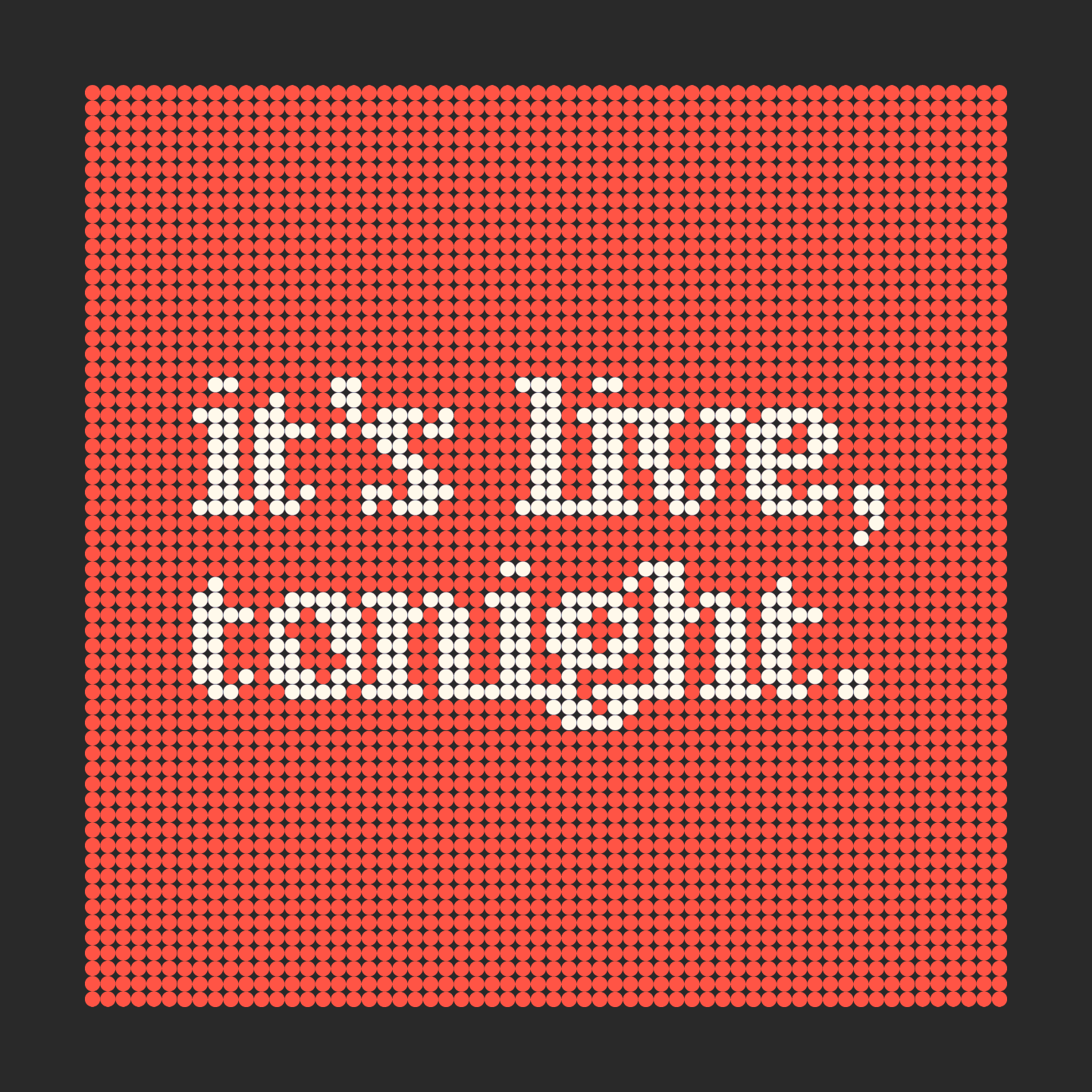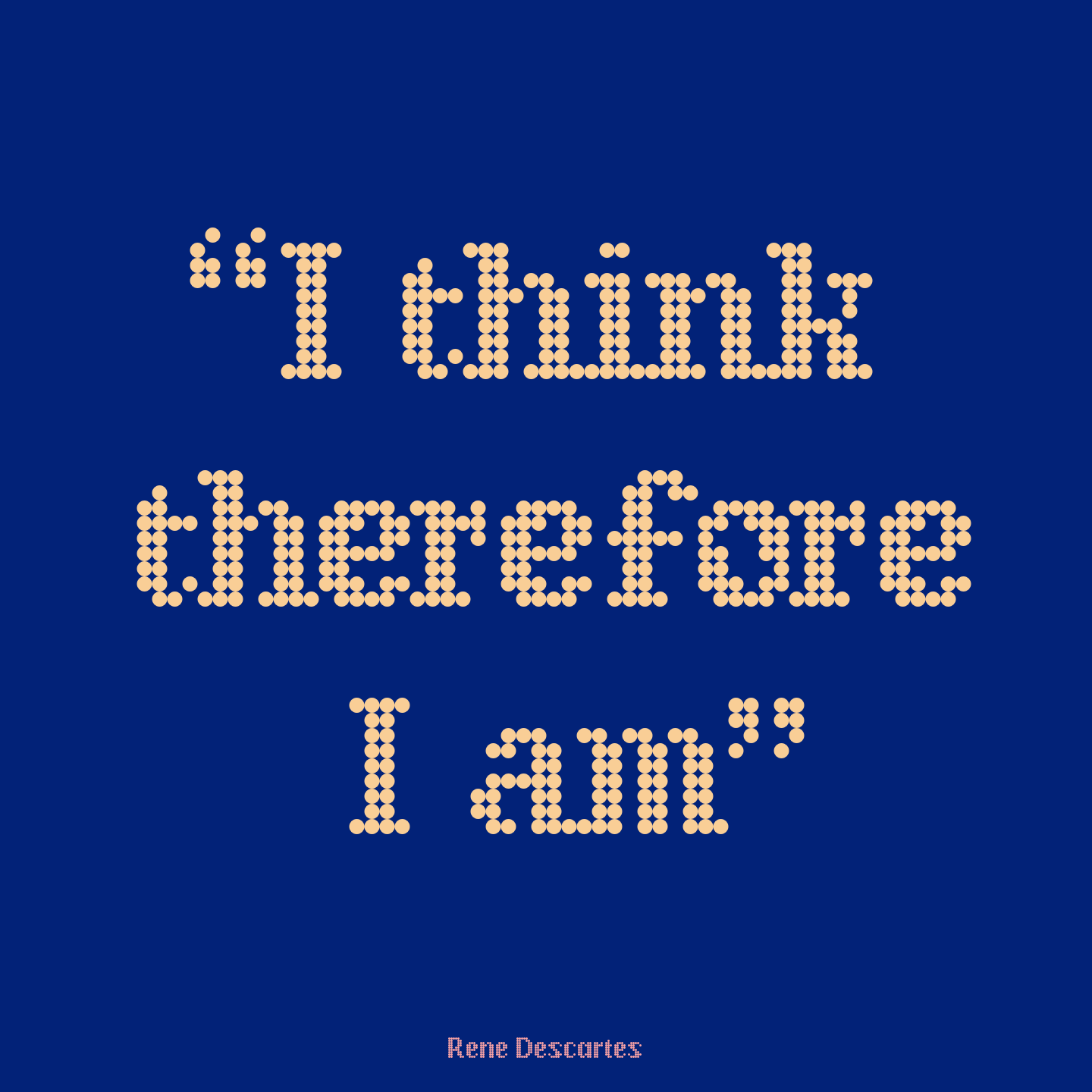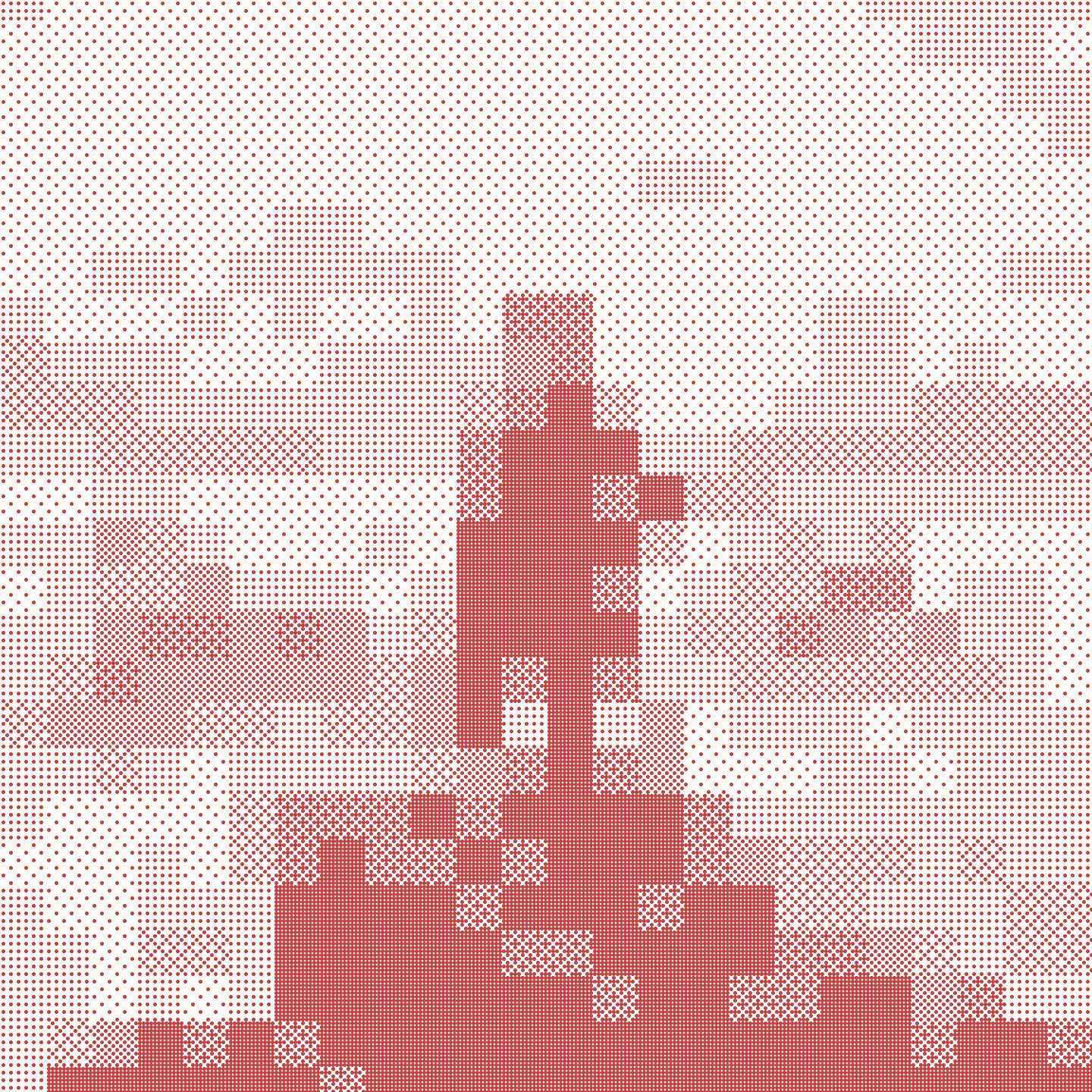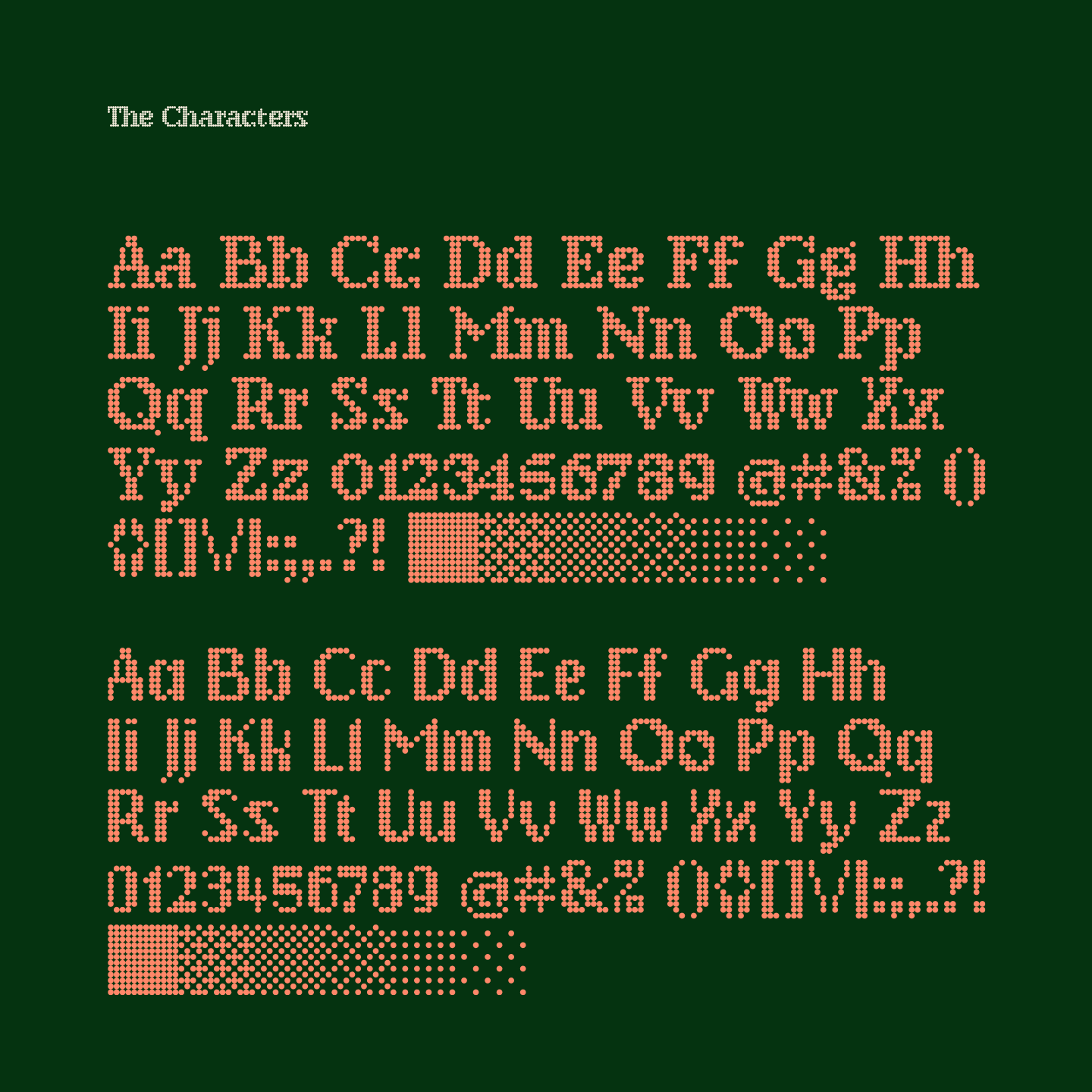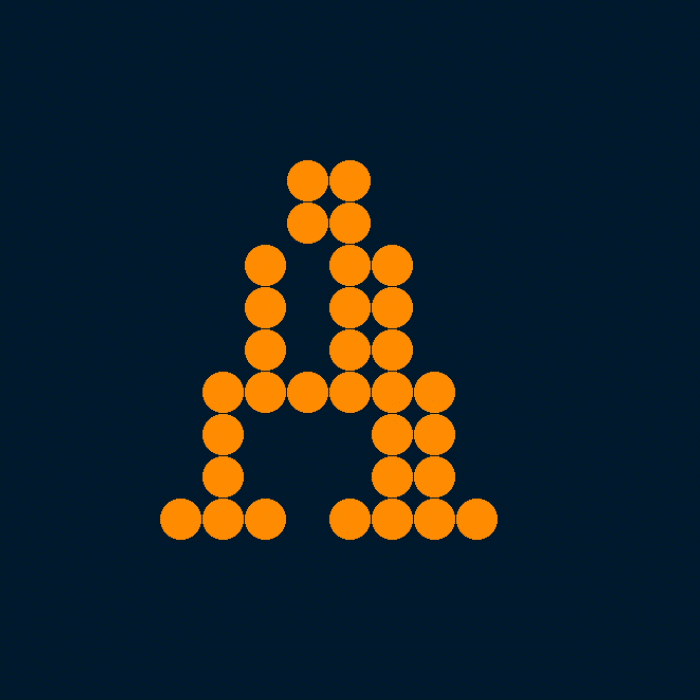
Cartesian is a modular typeface that gets its namesake from Descartes’s cartesian coordinate plane and Conway’s Game of Life. Each character is composed of cells that each can be considered either on or off.
The Cartesian family includes Cartesian Serif and Cartesian Sans Serif. And now, Serif italic and Sans italic!
Cartesian’s modular structure lends iteself perfectly to creating square dot field characters of varying density. Its easy then to imagine images like these being typed out.
its also easy to recreate Cartesian in many situations. for example in a Conway’s Game of Life style interactive program. Or even to construct it geometrically.